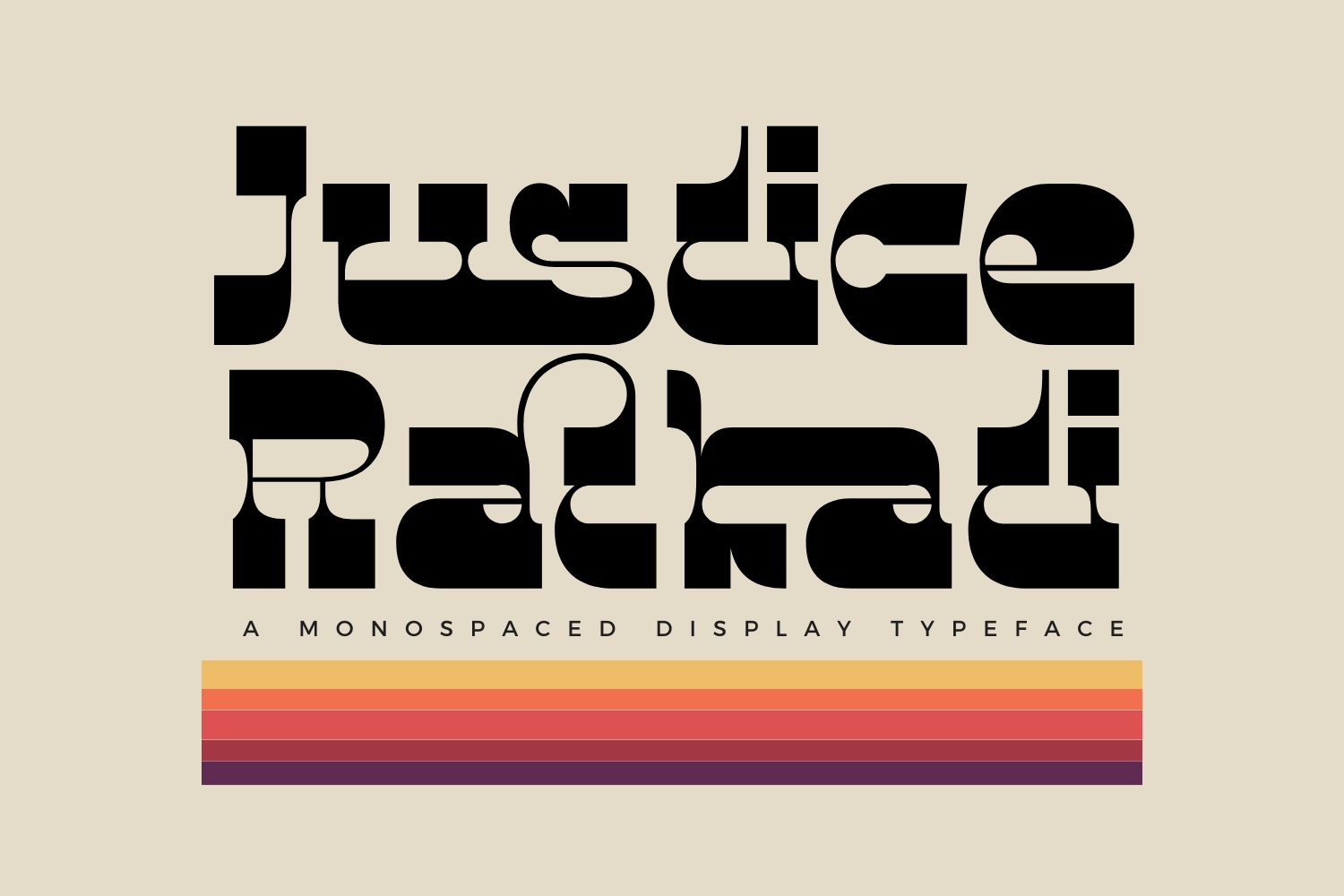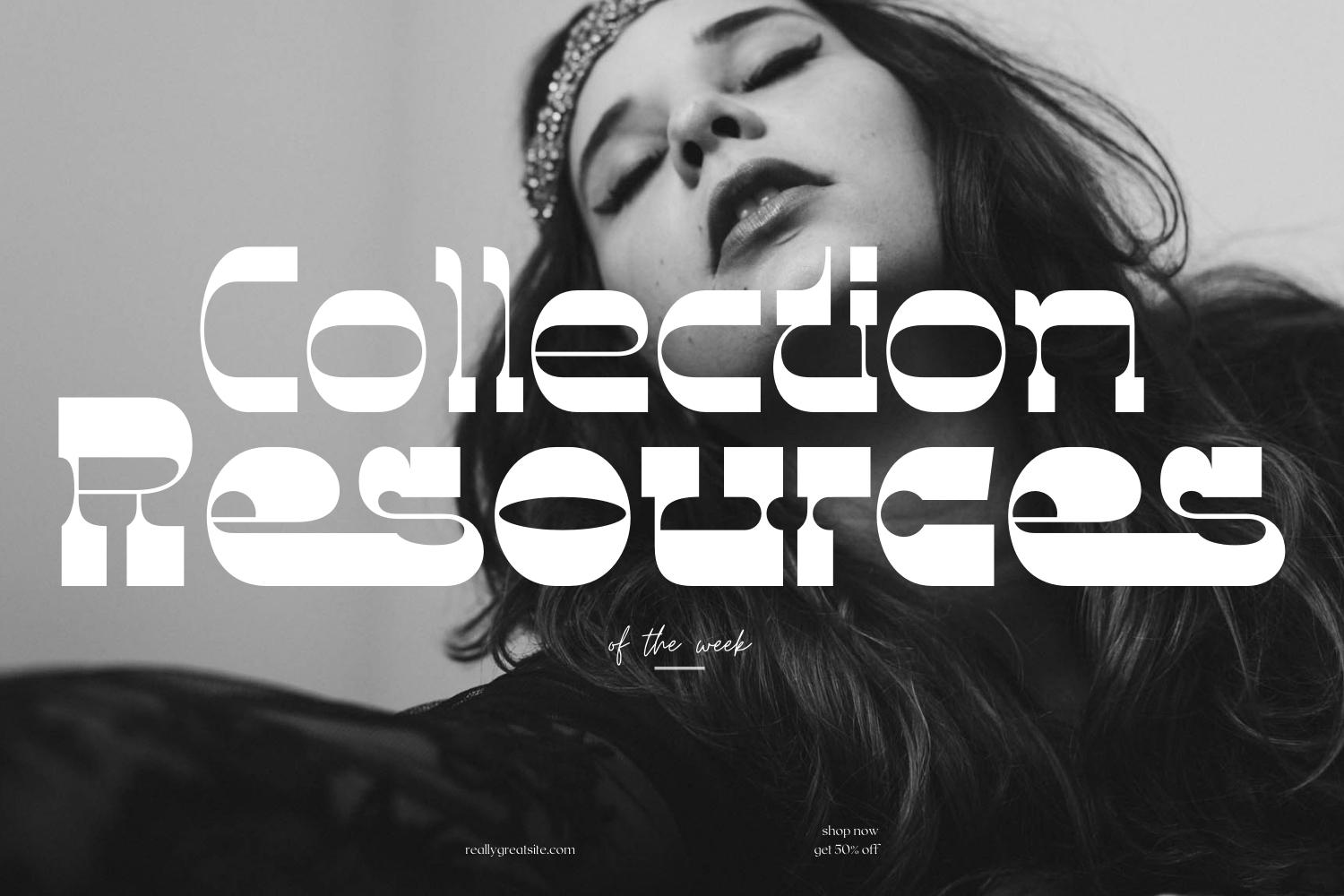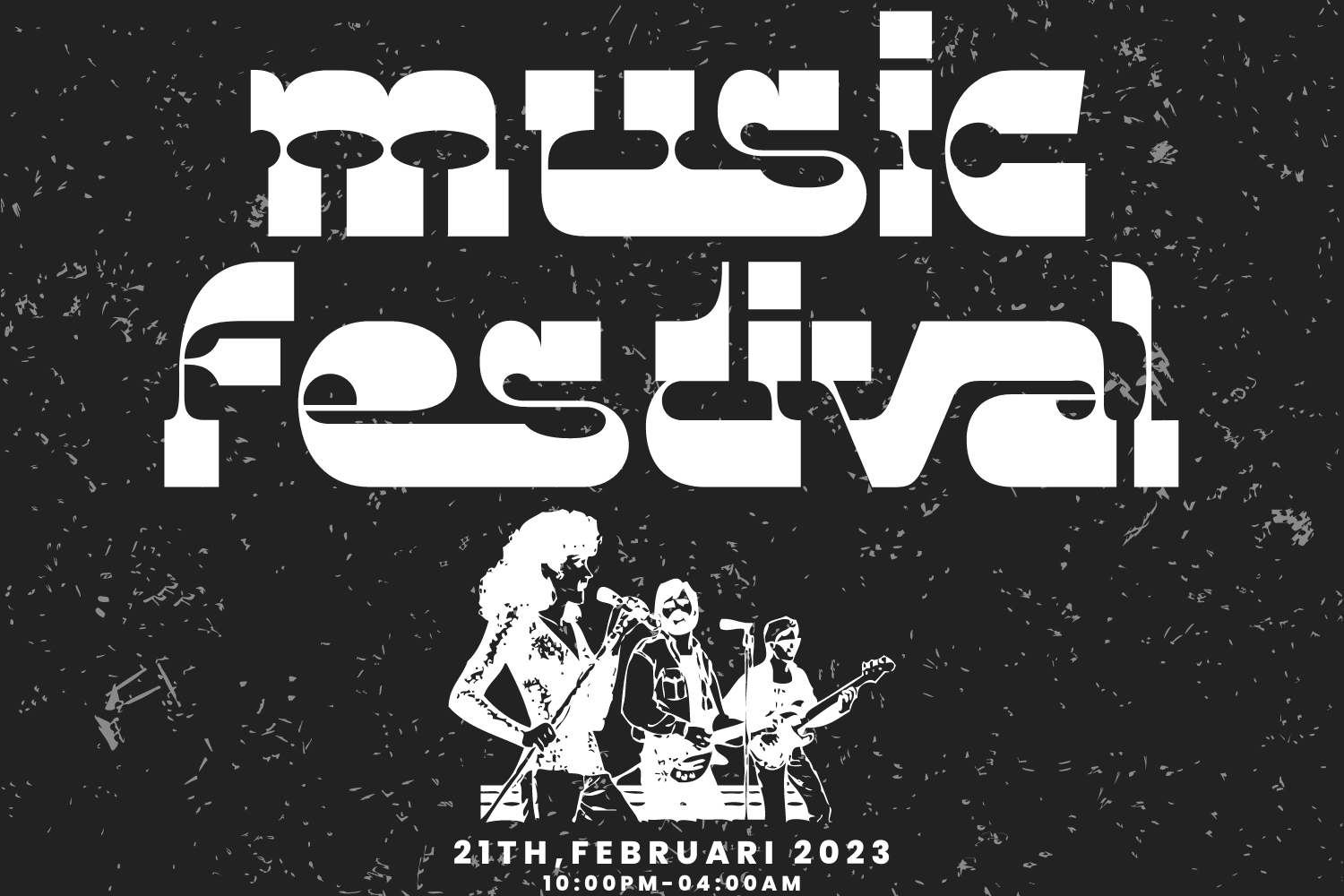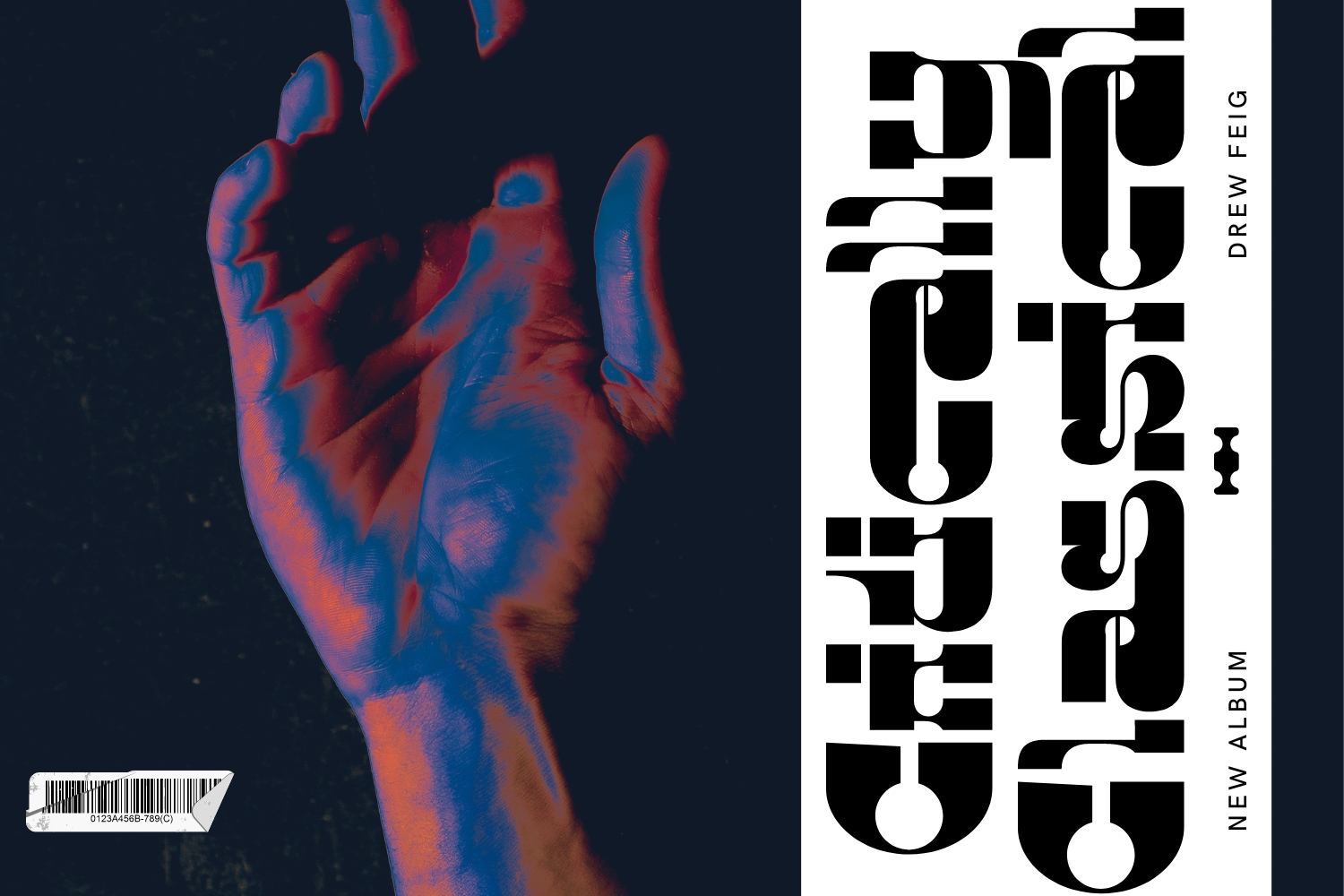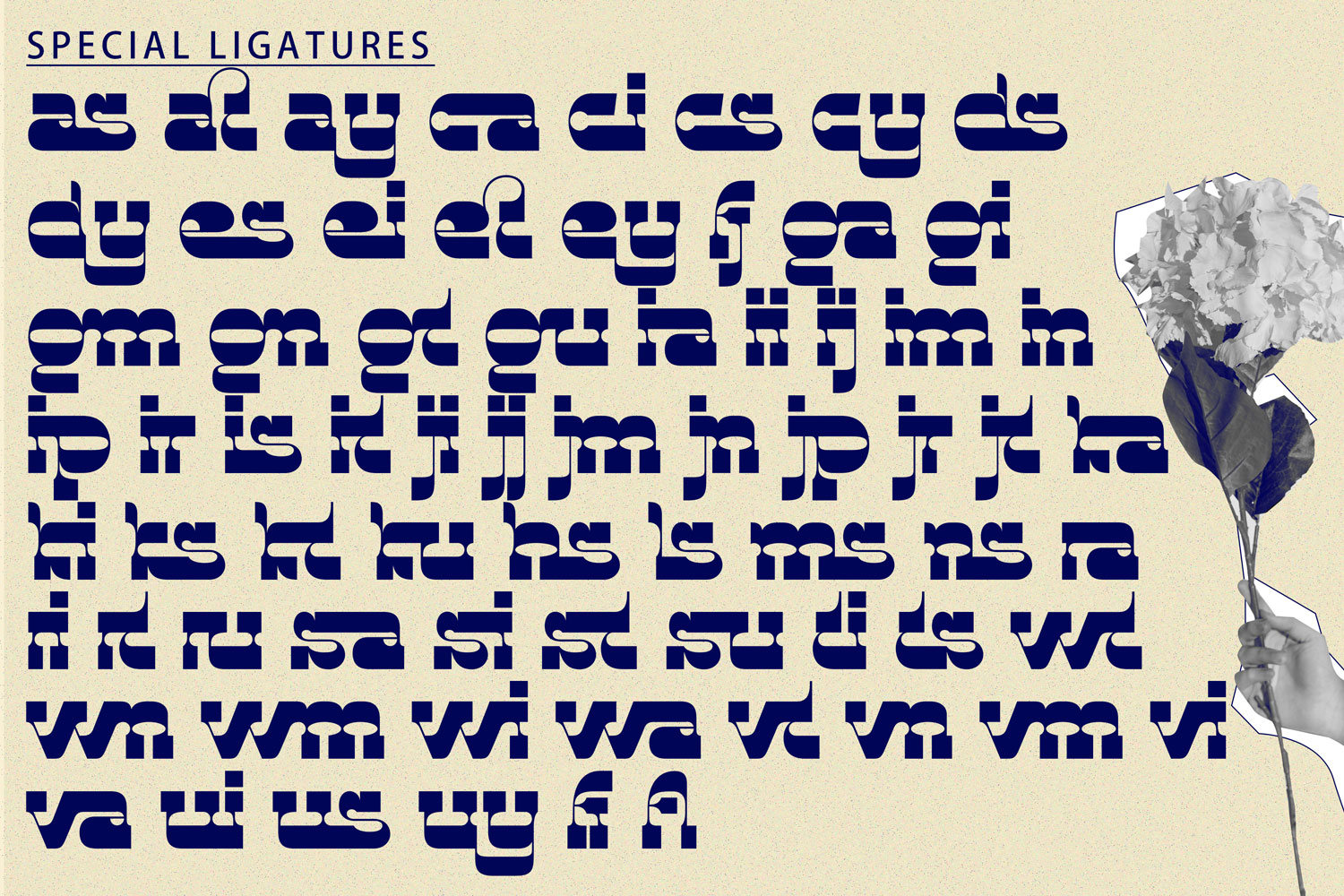
Justice Ratkati Font
Justice Ratkati Font is a bold font and cartoon like display font. A monospaced display typeface. The main idea behind this font was to create one that’s impactful and brute, one that occupies the biggest amount of space available. Besides it’s monstrous structure, there are thinner details that complete it’s composition. With extra attention to natural strokes and sharp details, It’s ideal for logos, apparel, quotes, product packaging, or anything which needs a typographic turbo-boost.
To make it look more unique, here we prepared some ligatures:
as at ay ca ci cs cy ds dy es ei et ey fj ga gi gm gn gt gu ia ii ij im in ip ir is it ji jj jm jn jp jr jt ka ki ks kt ku hs ls ms ns ra ri rt ru sa si st su ti ts wt wn wm wi wa vt vn vm vi va ui us uy fi fl…